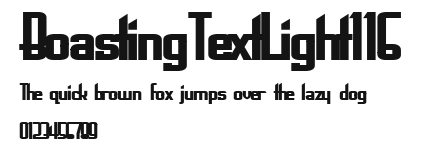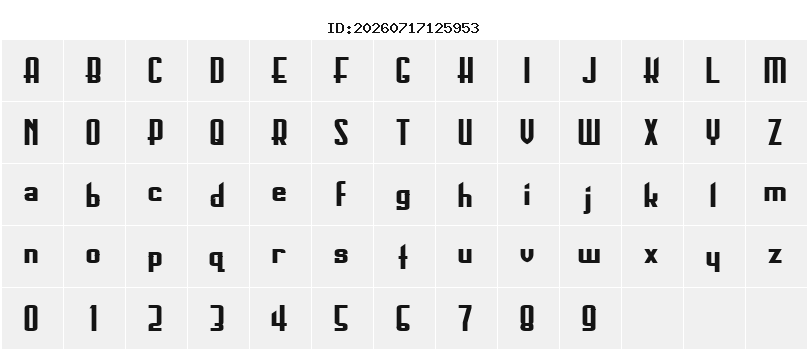
BoastingTextLight116 Preview
• Font Name: BoastingTextLight116
• Font ID: Altsys Metamorphosis:BoastingTextLight116 Bold
• Full Font Name: BoastingTextLight116 Bold
• Version: Altsys Metamorphosis:10/28/94
• PostScript Name: BoastingTextLight116-SPBold
About BoastingTextLight116.ttf
BoastingTextLight116.ttf is a modern, elegant sans-serif font designed for ultimate readability and visual harmony. Perfect for branding, headlines, web design, and print materials.